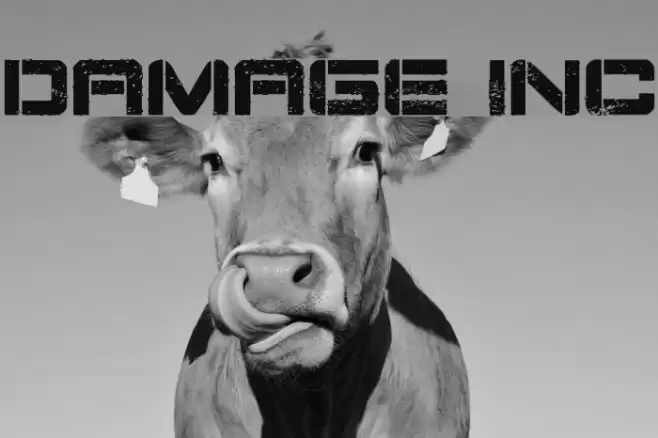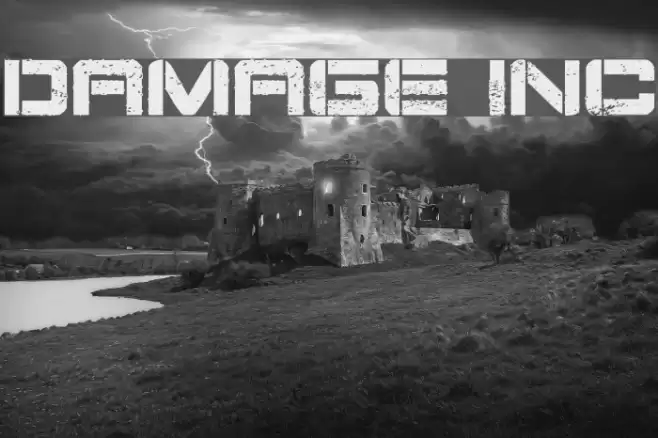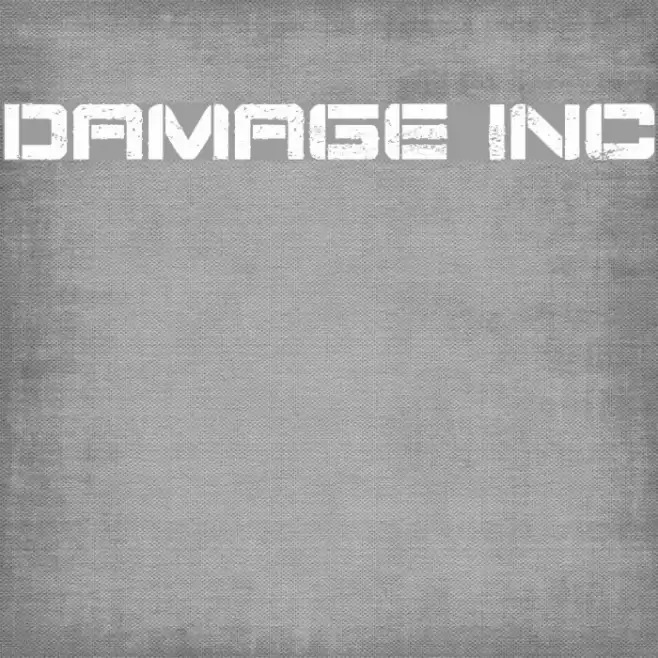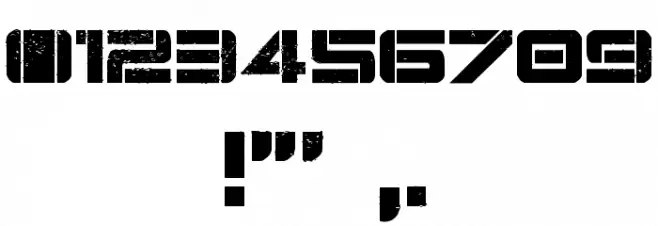
Damage Inc Font
Damage Inc Description
This font features a bold, distressed style that gives it a rugged and edgy appearance. The characters are blocky and geometric, with a textured effect that suggests wear and tear, making it ideal for designs that require a gritty or industrial feel. The uppercase and lowercase letters maintain a consistent style, with sharp angles and a uniform width. The numbers and special characters follow the same design principles, ensuring a cohesive look across all text elements. This font's unique aesthetic makes it stand out, particularly in projects that aim to convey strength and resilience.
A bold, distressed font with a rugged, industrial look from Uncategorized fonts.
- Proposed Projects: Ideal for posters, album covers, video game graphics, and branding for extreme sports or adventure-themed products.
- Overall Style: Modern, Industrial